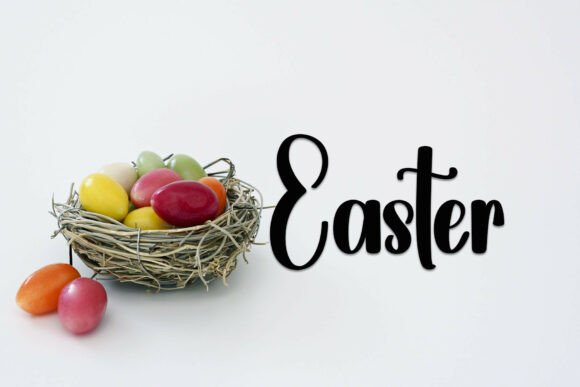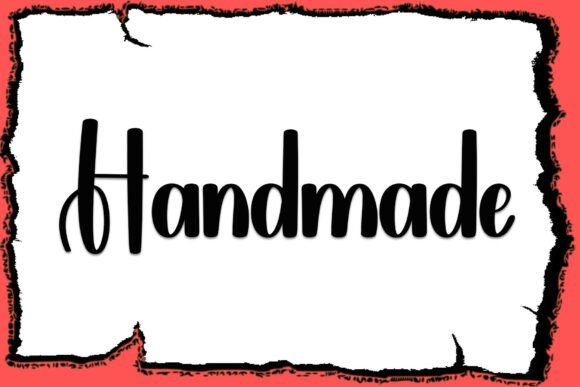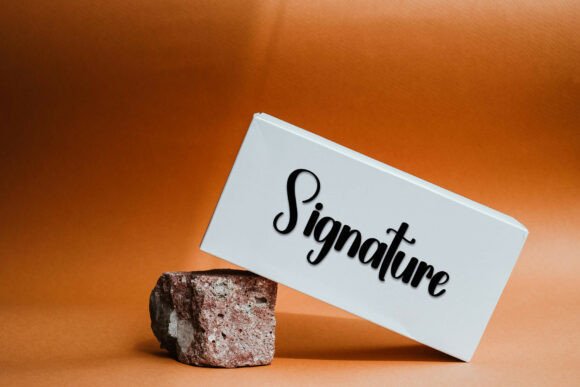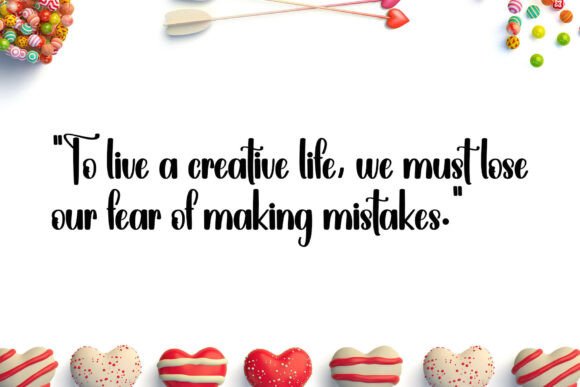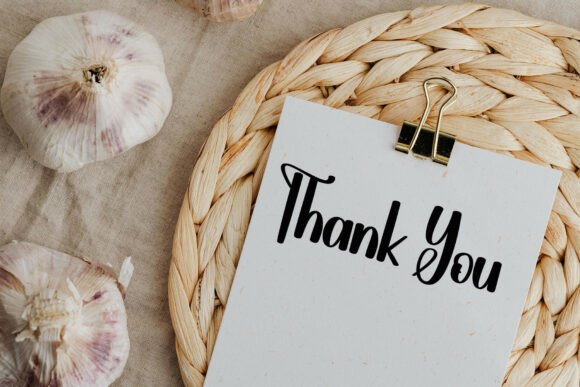
Introducing Doing Font: The Sweet and Elegant Handwritten Font for Your Design Needs
Are you looking for a font that can add a touch of elegance and romance to your designs? Look no further than Doing Font, a beautiful sweet and cursive handwritten font that is perfect for a variety of design projects. With its gentle and flowing lines, Doing Font is sure to make your designs stand out and leave a lasting impression.
What Makes Doing Font Special?
Doing Font is a unique and versatile font that is designed to be used for a wide range of design projects. Whether you’re working on a branding campaign, creating a logo, designing wedding materials, or crafting greeting cards, Doing Font is the perfect choice. Its sweet and cursive handwritten style gives it a joyful and romantic feel that is sure to captivate your audience.
One of the best things about Doing Font is its ability to add a touch of elegance and sophistication to your designs without looking too formal. The font’s gentle lines and curves make it perfect for designs that need to look fancy and elegant but still casual. This makes it an ideal choice for designers and crafters who want to create beautiful and eye-catching designs that stand out from the crowd.
Use Cases for Doing Font
So, what can you use Doing Font for? The possibilities are endless! Here are some ideas to get you started:
- Branding: Use Doing Font to create a unique and memorable brand identity that sets you apart from the competition.
- Logo Design: Create a stunning logo that showcases your brand’s personality and style with Doing Font.
- Wedding Design: Add a touch of romance and elegance to your wedding designs, including invitations, programs, and decorations.
- Greeting Cards: Create beautiful and heartfelt greeting cards for special occasions, such as birthdays, anniversaries, and holidays.
- Fashion and Lookbook: Use Doing Font to add a touch of style and sophistication to your fashion designs and lookbooks.
- Marketing Promotion: Create eye-catching marketing materials, such as brochures, flyers, and posters, that showcase your brand’s personality and style.
Why Designers and Crafters Love Doing Font
Designers and crafters love Doing Font for many reasons. Here are a few:
- Unique and Versatile: Doing Font is a unique and versatile font that can be used for a wide range of design projects.
- Elegant and Sophisticated: The font’s gentle lines and curves make it perfect for designs that need to look fancy and elegant but still casual.
- Easy to Read: Doing Font is easy to read, making it perfect for designs that require a lot of text, such as brochures and flyers.
- Customizable: Doing Font can be customized to fit your design needs, making it perfect for designers who want to create unique and personalized designs.
Tips for Using Doing Font
Here are some tips for using Doing Font in your designs:
- Use it sparingly: Use Doing Font sparingly to add a touch of elegance and sophistication to your designs.
- Pair it with other fonts: Pair Doing Font with other fonts to create a unique and visually appealing design.
- Experiment with colors: Experiment with different colors to find the perfect combination that complements your design.
- Keep it simple: Keep your design simple and clean to let Doing Font shine.
In conclusion, Doing Font is a beautiful sweet and cursive handwritten font that is perfect for designers and crafters who want to add a touch of elegance and romance to their designs. With its gentle lines and curves, Doing Font is sure to make your designs stand out and leave a lasting impression. Whether you’re working on a branding campaign, creating a logo, designing wedding materials, or crafting greeting cards, Doing Font is the perfect choice.